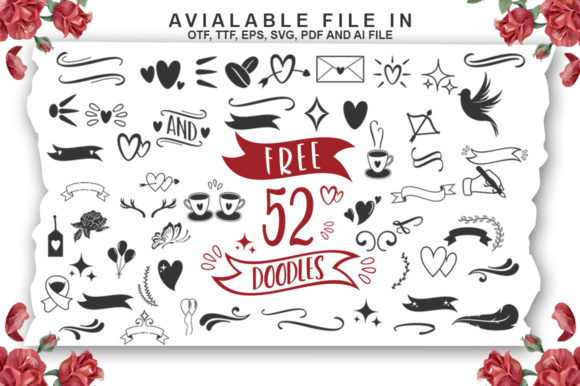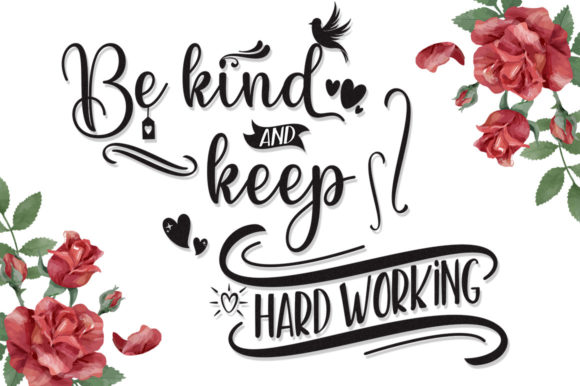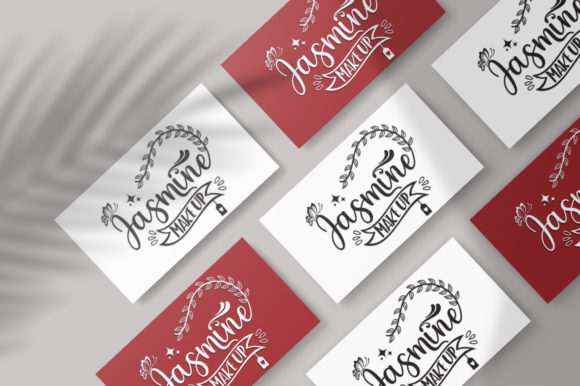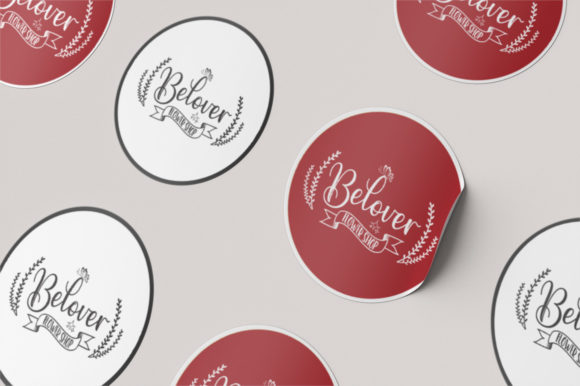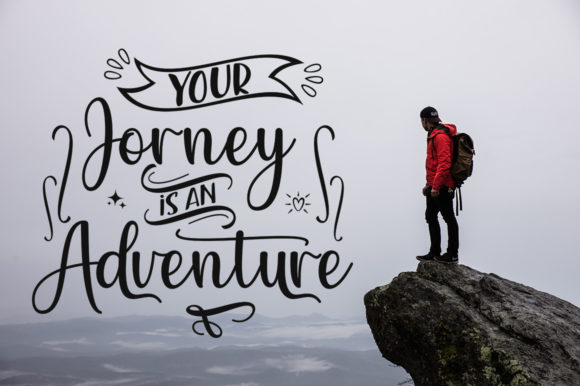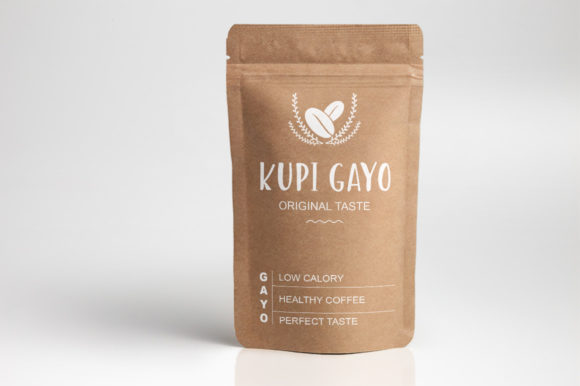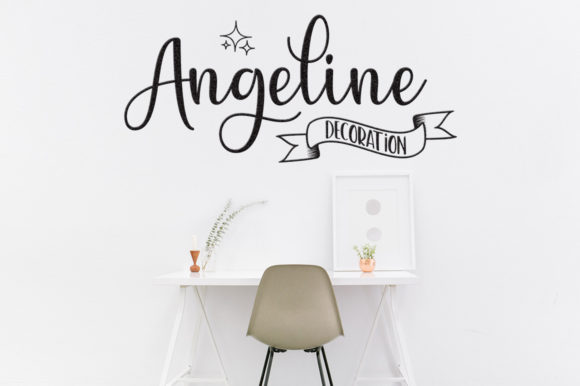
About Better Dreams Font
Better Dreams is a spectacular duo font (sans serif and script). Incredibly versatile, this font fits a wide pool of designs, elevating them to the highest levels. Add this font to your favorite creative ideas and notice how it makes them come alive!